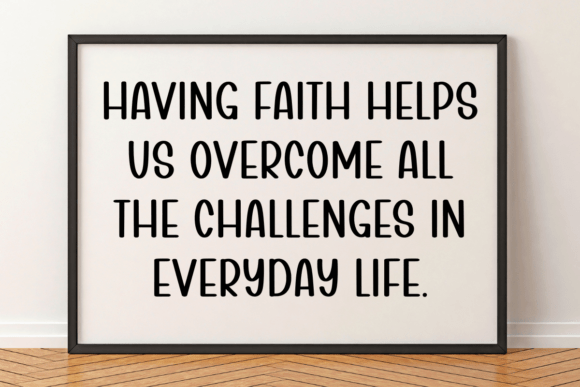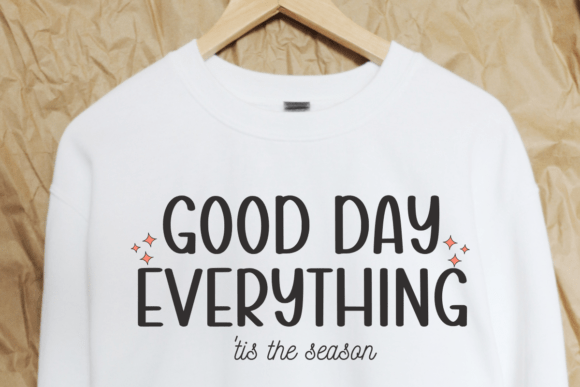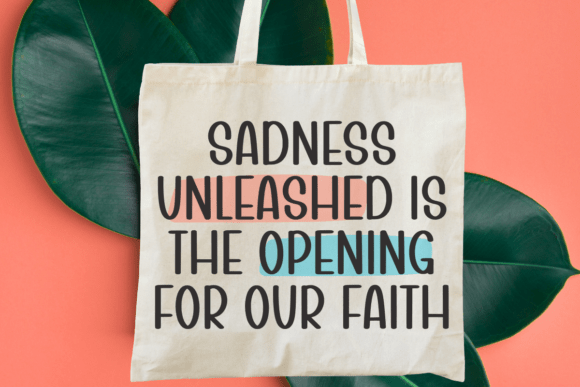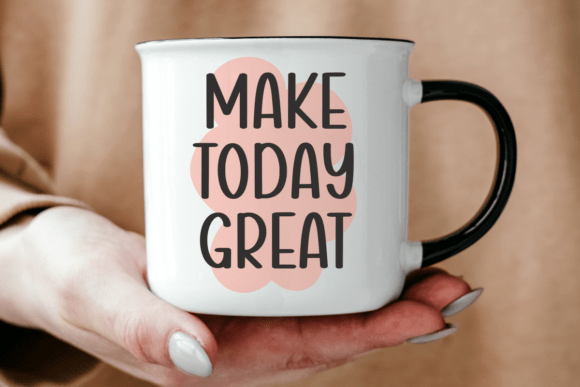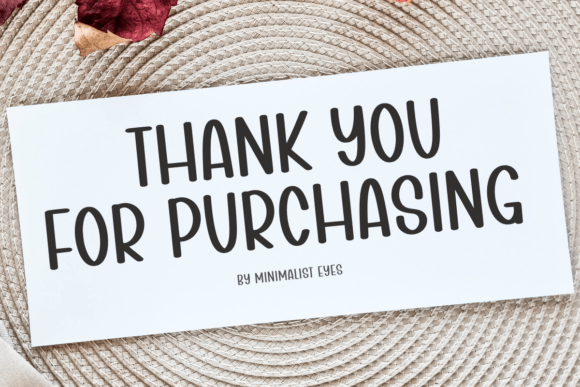
Introducing Classic Lemonade Font: The Ultimate Choice for Cheerful Designs
Are you looking for a font that exudes happiness and warmth? Look no further than Classic Lemonade, a refreshingly cheerful and simple sans-serif font that’s perfect for designers and crafters alike. With its bold, rounded forms and friendly, approachable style, this font is guaranteed to bring a happy, bright, and easy-to-read vibe to any design.
The Perfect Font for Children’s Books and Summer Promotions
Classic Lemonade Font is an excellent choice for children’s books, fun summer promotions, and crafting projects. Its playful and energetic personality makes it ideal for designs that require a youthful and vibrant feel. Whether you’re creating a colorful storybook, a summer sale poster, or a fun DIY craft, this font is sure to capture the attention of your audience and leave a lasting impression.
Key Features of Classic Lemonade Font
• Bold and Rounded Forms: Classic Lemonade Font features bold, rounded forms that give it a friendly and approachable feel.
• Hand-Drawn Favorite: This font is a sweet, hand-drawn favorite that’s perfect for designs that require a personal touch.
• Easy-to-Read: With its clear and simple sans-serif design, Classic Lemonade Font is easy to read and perfect for designs that require a high level of legibility.
• Versatile: This font is versatile and can be used for a wide range of designs, from children’s books to social media graphics.
Why Choose Classic Lemonade Font?
There are many reasons why Classic Lemonade Font stands out from the crowd. Here are a few:
• Unique Personality: This font has a unique personality that’s hard to find in other fonts. Its cheerful and friendly style makes it perfect for designs that require a personal touch.
• Highly Legible: Classic Lemonade Font is highly legible, making it perfect for designs that require a clear and easy-to-read font.
Design Ideas Using Classic Lemonade Font
Classic Lemonade Font is a versatile font that can be used for a wide range of designs. Here are a few ideas to get you started:
• Children’s Books: Use Classic Lemonade Font to create colorful and engaging children’s books that will delight kids and parents alike.
• Summer Promotions: Create eye-catching summer promotions using this font, perfect for sales, discounts, and special offers.
• Crafting Projects: Use Classic Lemonade Font to add a personal touch to your crafting projects, such as DIY signs, cards, and gift tags.
• Social Media Graphics: Create eye-catching social media graphics using this font, perfect for Facebook, Instagram, Twitter, and more.
In conclusion, Classic Lemonade Font is a refreshingly cheerful and simple sans-serif font that’s perfect for designers and crafters alike. With its bold, rounded forms and friendly, approachable style, this font is guaranteed to bring a happy, bright, and easy-to-read vibe to any design. Whether you’re creating children’s books, summer promotions, crafting projects, or social media graphics, Classic Lemonade Font is the ultimate choice for cheerful designs.